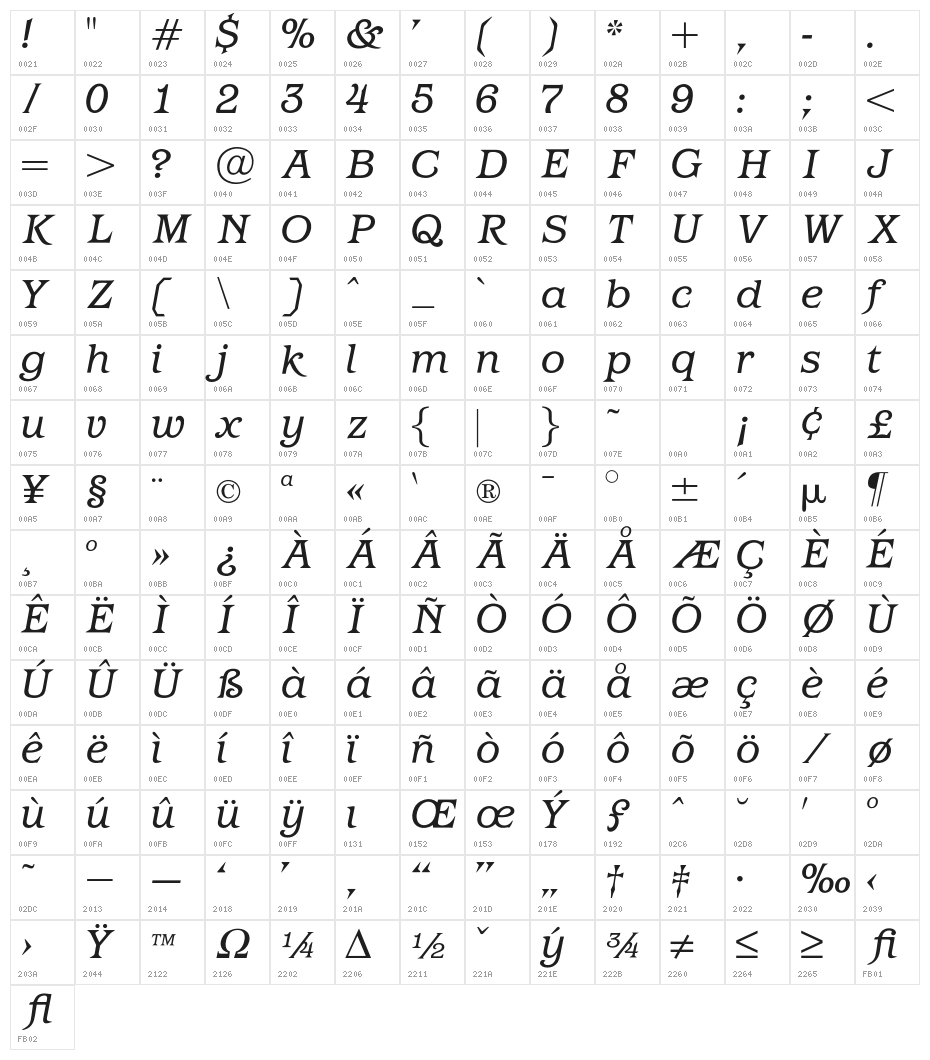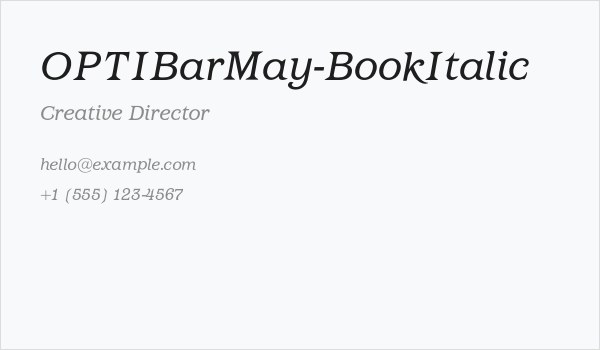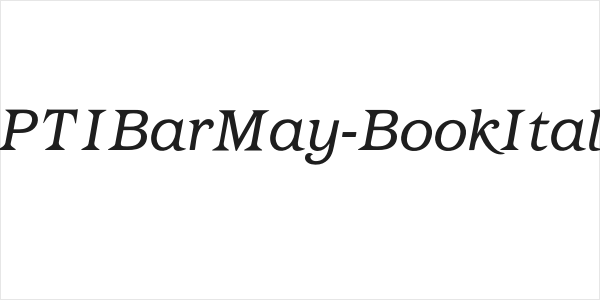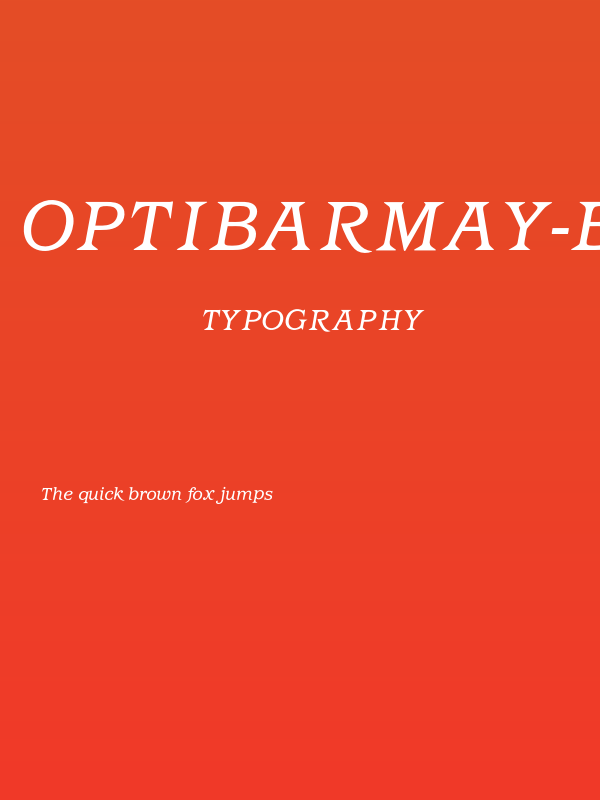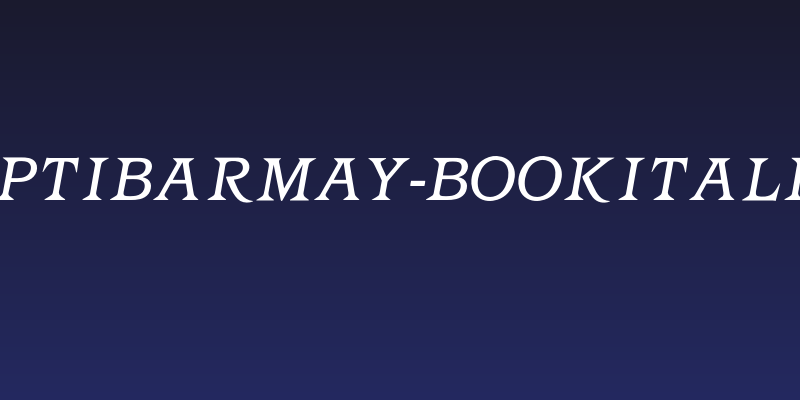
OPTIBarMay-BookItalic Font
OPTIBarMay-BookItalic Description
This font features a classic serif style with a distinct italic slant, giving it an elegant and sophisticated appearance. The characters exhibit a moderate contrast in stroke thickness, enhancing readability while maintaining a refined look. The serifs are well-defined, adding a touch of tradition and formality. The overall design is balanced, with a slight inclination that suggests movement and fluidity. The uppercase letters are slightly taller than the lowercase, providing a clear hierarchy. Numerals are consistent with the letterforms, ensuring uniformity across text. Special characters are crafted with the same attention to detail, making them suitable for various applications.
| Proposed Projects | Ideal for formal invitations, editorial design, branding, and elegant signage. |